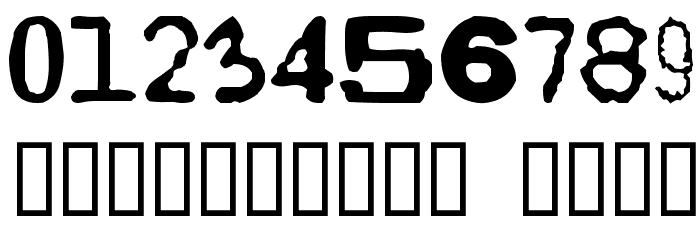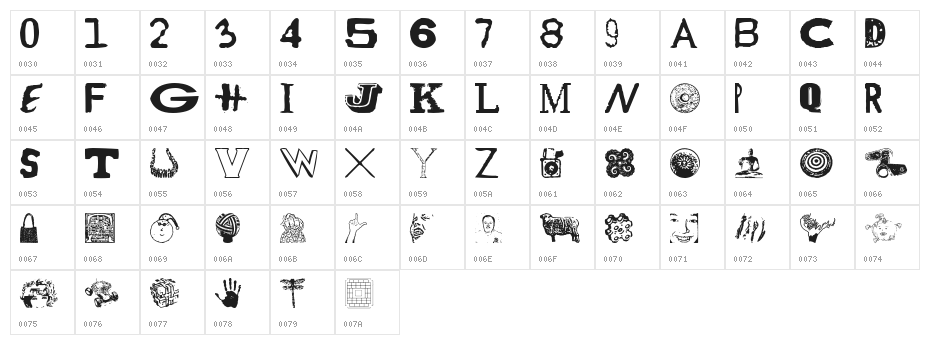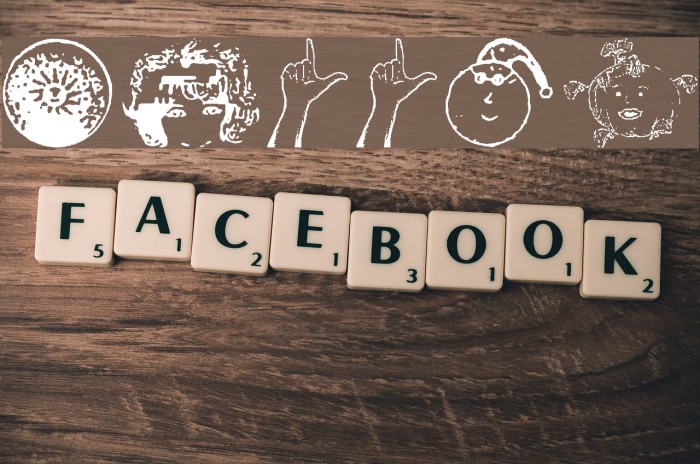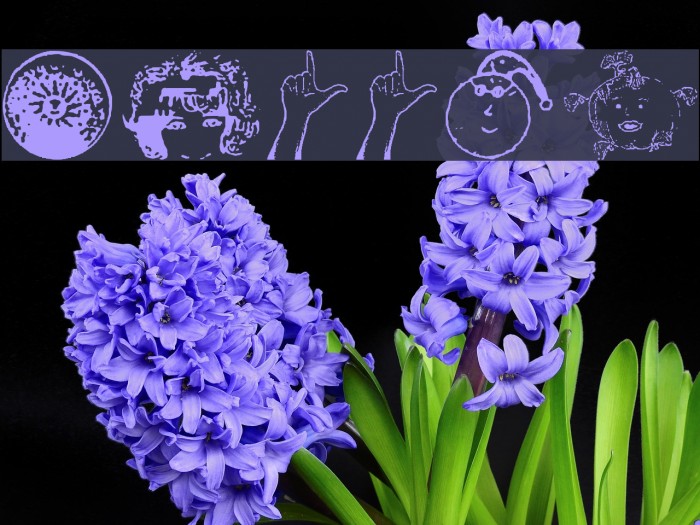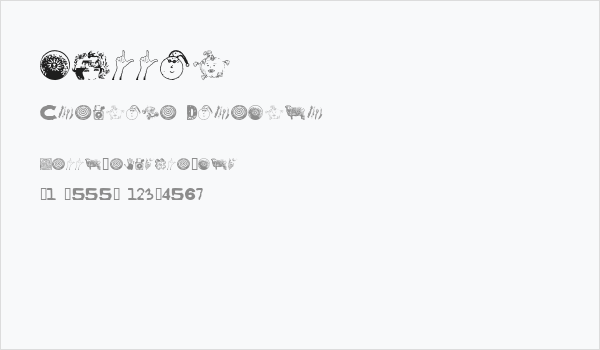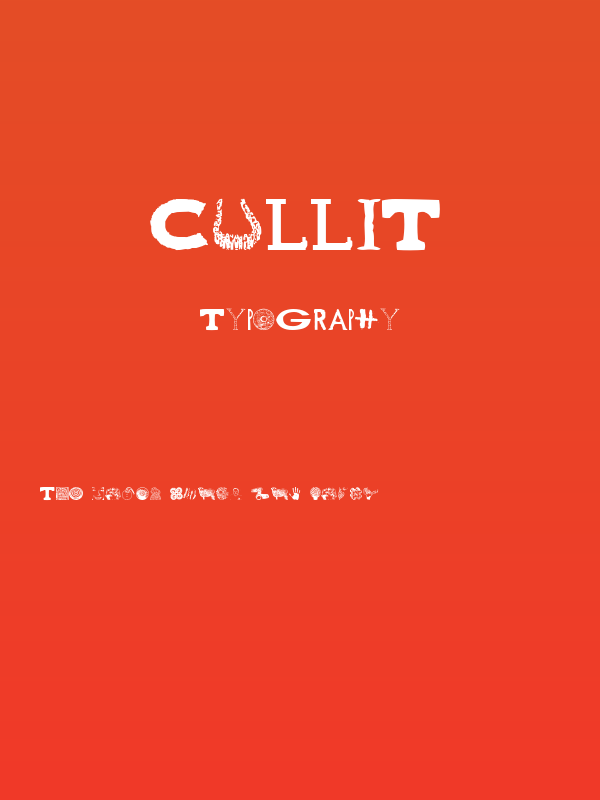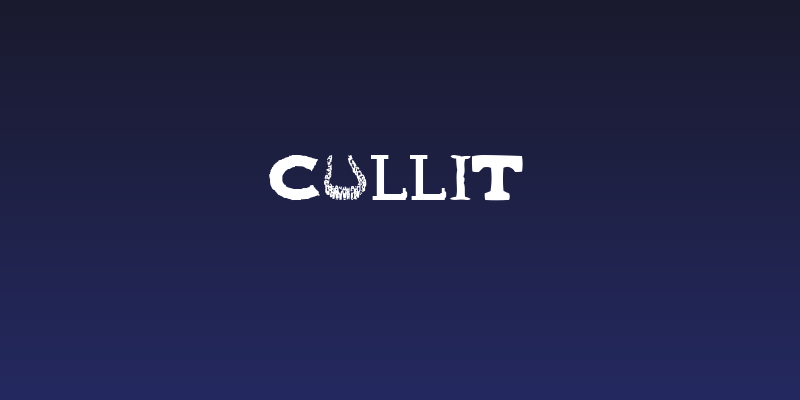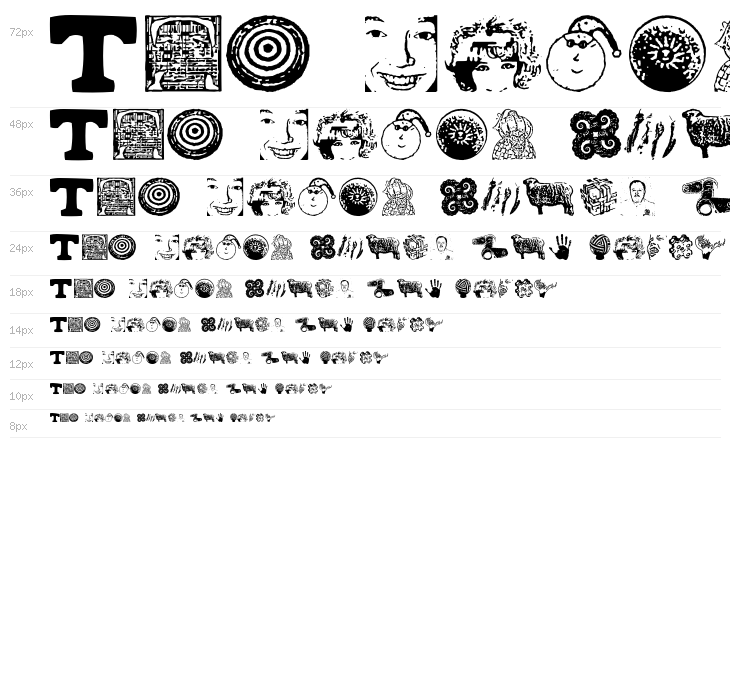
cullit Font
cullit Description
This font is a highly decorative and eclectic typeface that combines elements of both traditional and modern design. Each character is uniquely styled, incorporating various textures and patterns that give it a distinct artistic flair. The uppercase letters feature a mix of bold, solid forms and intricate designs, while the lowercase letters are replaced with detailed illustrations, adding a whimsical and playful touch. The numbers maintain a bold and somewhat distorted appearance, contributing to the overall unconventional style. This font is ideal for creative projects that require a standout, artistic look.
| Proposed Projects | Ideal for artistic posters, album covers, creative branding, and unique invitations. |